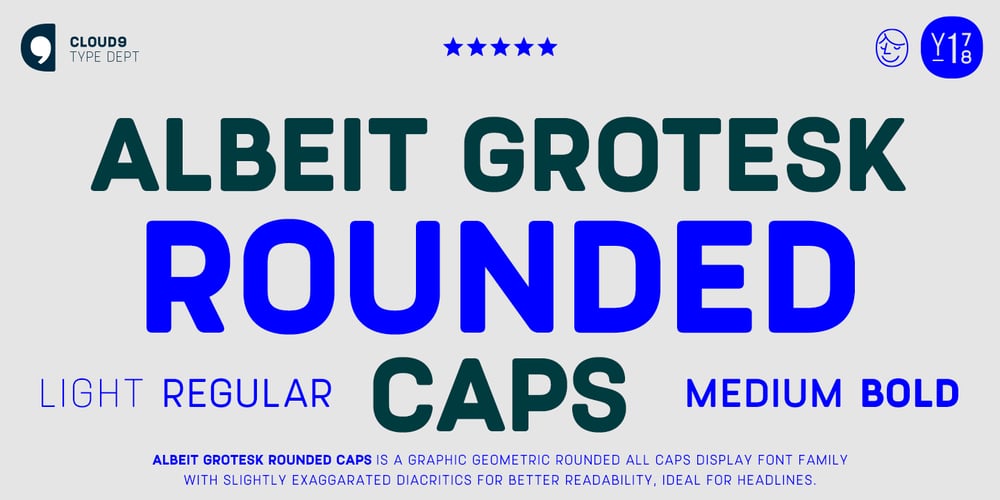
Albeit Grotesk Rounded Caps
Albeit Grotesk Rounded Caps font
Albeit Grotesk Rounded Caps Font Family was designed by Jani Paavola and published by Cloud9 Type Dept. Albeit Grotesk Rounded Caps contains 4 styles and family package options. Albeit Grotesk Rounded Caps is a graphic geometric rounded all caps display font family of four weights (Light, Regular, Medium and Bold) with slightly exaggarated diacritics for better readability making it ideal for headlines.